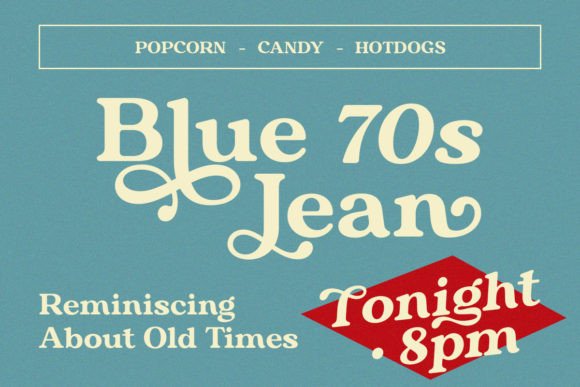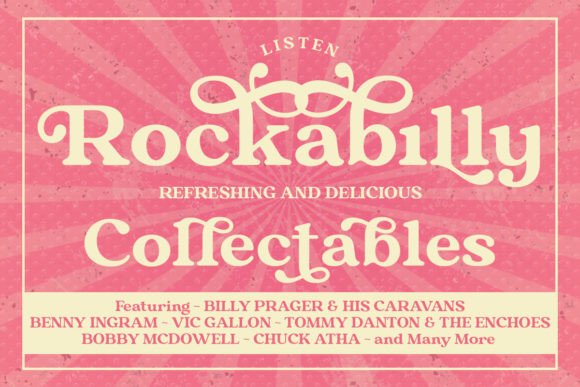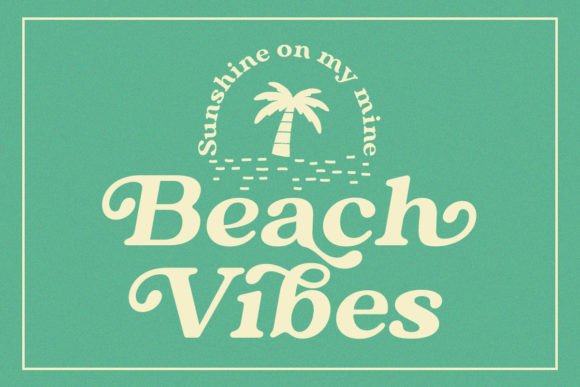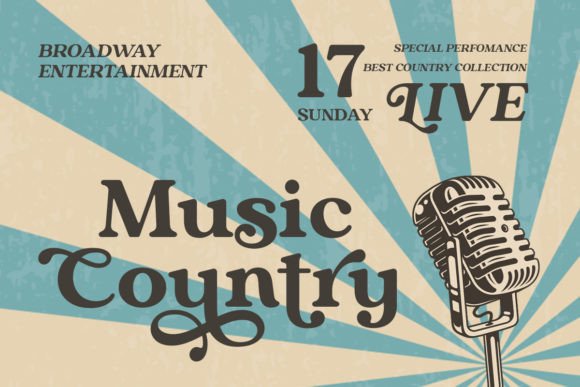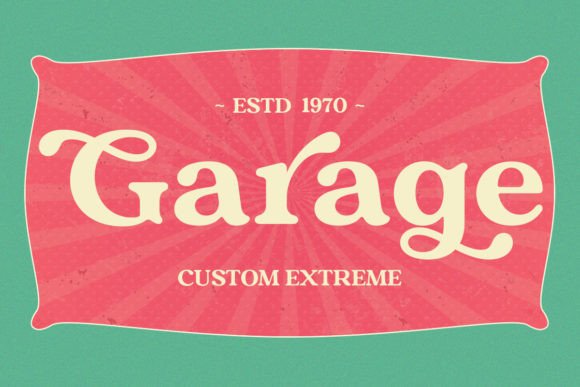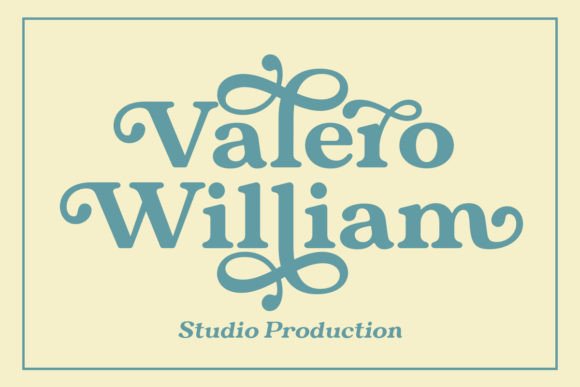
The Groovy Revival: Unlocking the Power of Belora Vintage Font
Remember those late-night design sessions where you’re rummaging through your font library, searching for the perfect retro vibe? You know, the one that screams “70s chic” and makes your design pop? Well, buckle up, designers, because we’ve got the ultimate tool to bring back the nostalgia: Belora Vintage Font.
This bold serif font boasts soft, bold edges and curves that transport you back to the groovy era of disco, bell-bottoms, and big hair. With its sleek alternates and ligatures, Belora Vintage Font is perfect for crafting fancy retro-style logos, bold header text, and other eye-catching designs. As a PUA-encoded font, accessing all the glyphs and swashes is a breeze, making it a valuable addition to any designer’s toolkit.
Belora Vintage Font Review
At first glance, Belora Vintage Font caught my eye with its elegant, distressed aesthetic. The font’s ability to evoke a sense of nostalgia and sophistication is ✨ undeniably effective. It’s perfect for creating a vintage-inspired atmosphere in designs, from advertising to editorial content.
Here are some key features that make Belora Vintage Font stand out:
- ✨ Unique, hand-drawn style that adds character to designs
- ✨ Excellent for creating a sense of nostalgia and timelessness
- ✨ Wide range of application possibilities, from print to digital media
However, I did encounter some limitations while working with Belora Vintage Font:
- ⚠️ The font may be difficult to read in certain contexts, particularly in small sizes or when used in combination with other distressed fonts
- ⚠️ Some characters may appear inconsistent or irregular, which could affect the overall aesthetic
Overall, Belora Vintage Font is a solid choice for designers looking to add a touch of elegance and sophistication to their projects. While it may have some limitations, its unique style and versatility make it a worthwhile addition to any font collection.
Tips for Getting the Most Out of Belora Vintage Font
To get the most out of the Belora Vintage Font, try pairing it with distressed textures or watercolor backgrounds for a unique and vintage look. Experiment with different font sizes and colors to create visual interest. You can also use the font for titles, headings, and quotes to add a touch of elegance and sophistication.
The Belora Vintage Font is perfect for:
- Photography captions and quotes
- Artistic and creative projects
- Marketing materials and branding